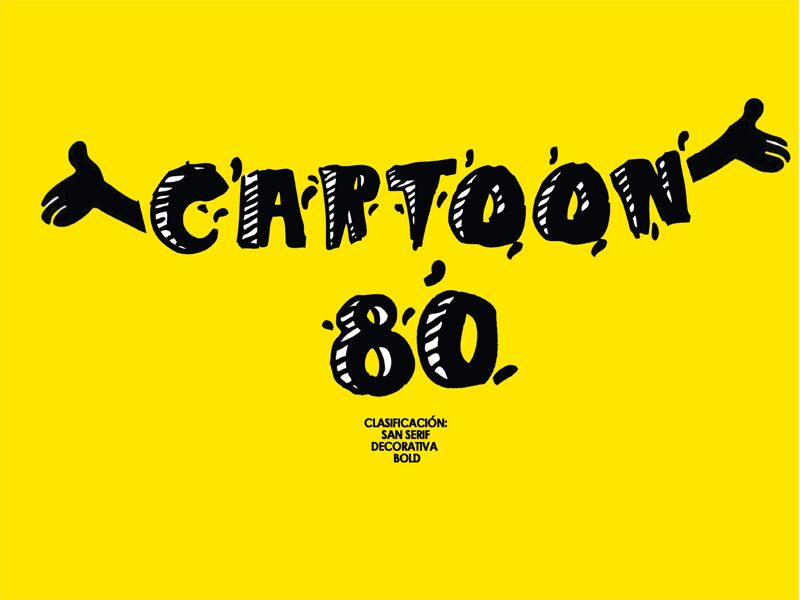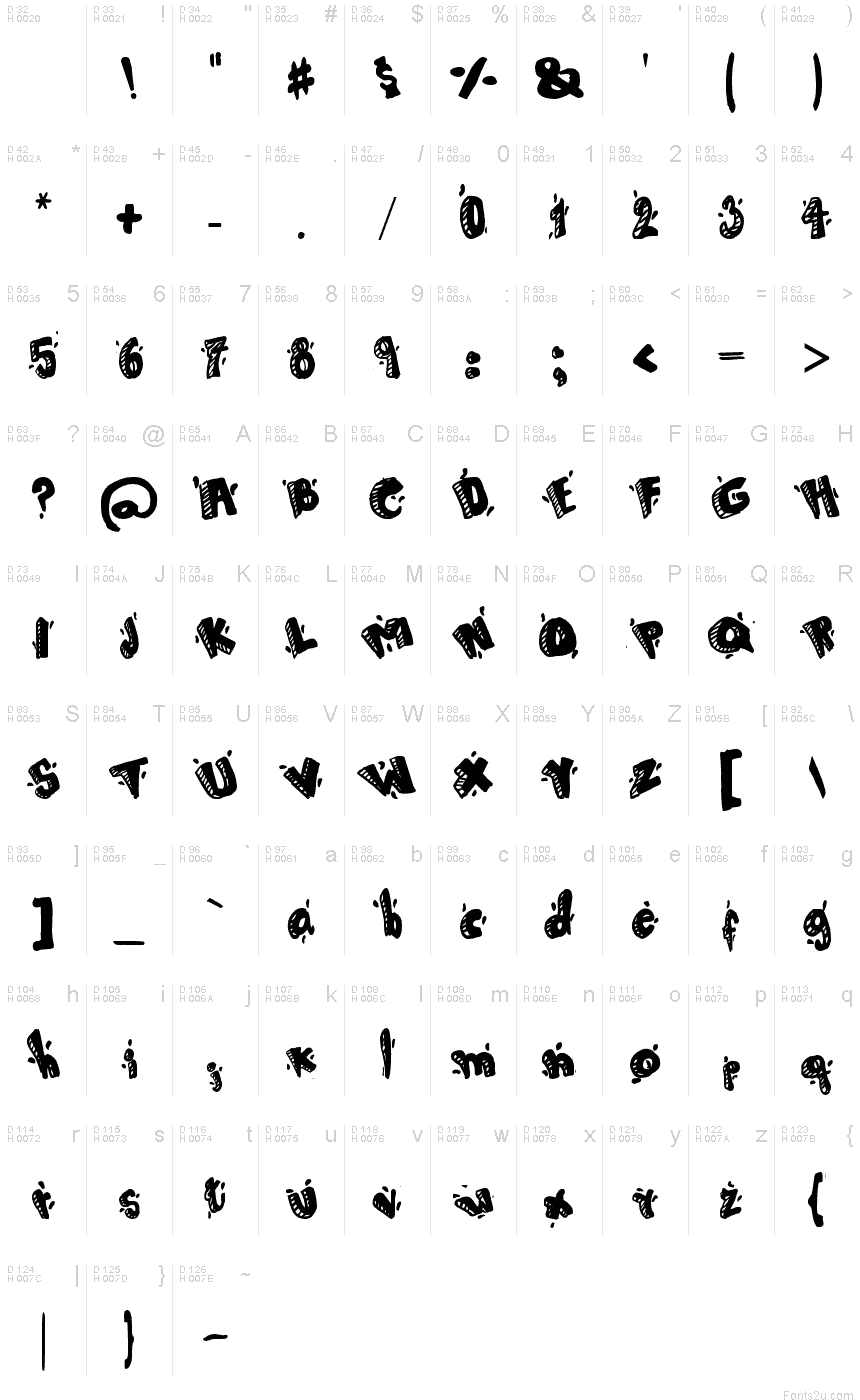
Cartoon 80 is a free cartoon display font with chunky, uneven letterforms and a rowdy hand-drawn finish. The shapes tilt, crowd together, and shift in height, creating the restless bounce of lettering cut from paper or scrawled for a comic panel. White hatch marks and scattered ink-like flecks break up the dense strokes.
Young audiences will respond to its unruly comic-book bounce. It suits children's entertainment, snack packaging, music posters, and game graphics, especially when the design draws on slapstick humor, street-art marks, or noisy action-cartoon imagery.